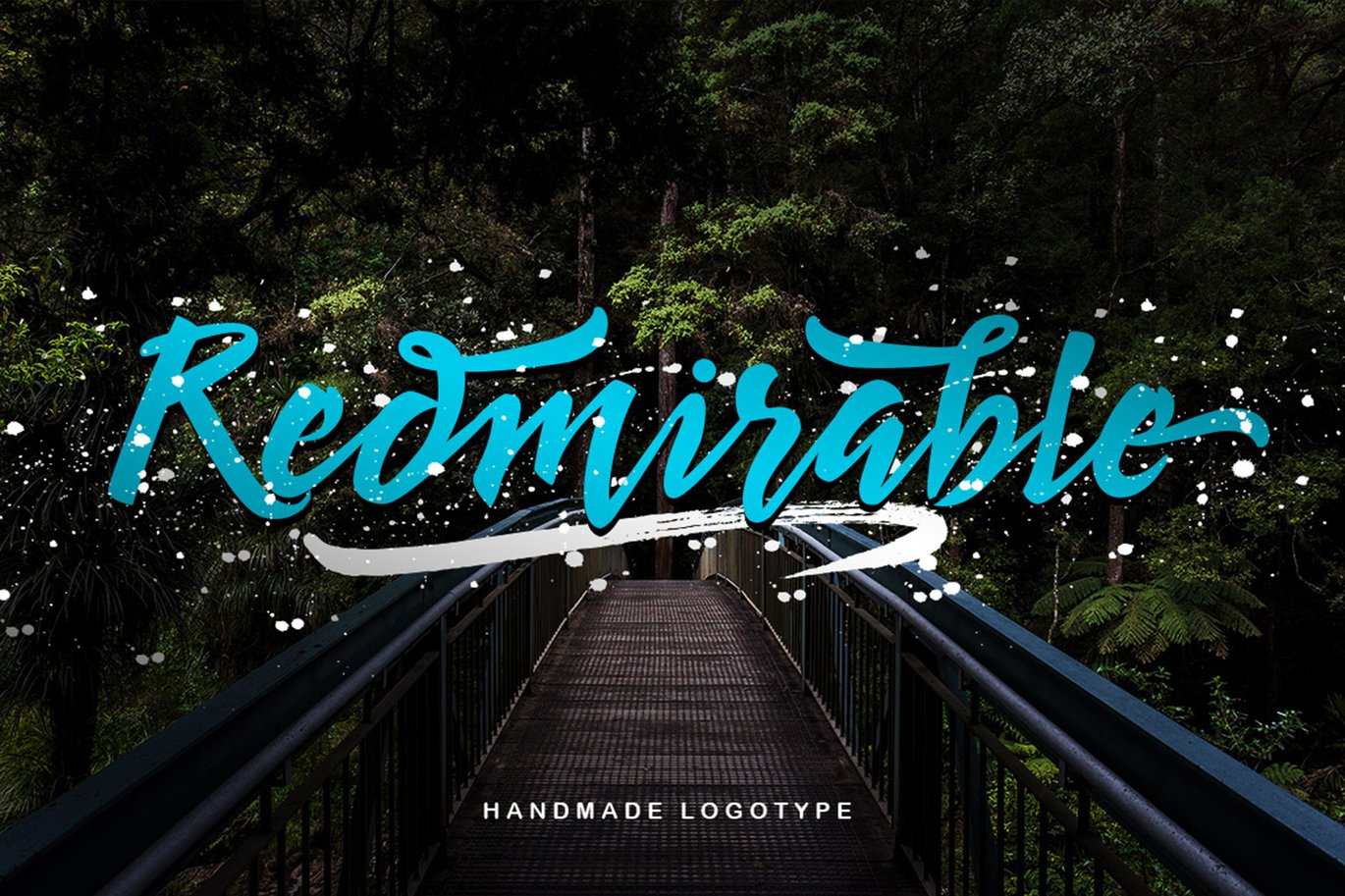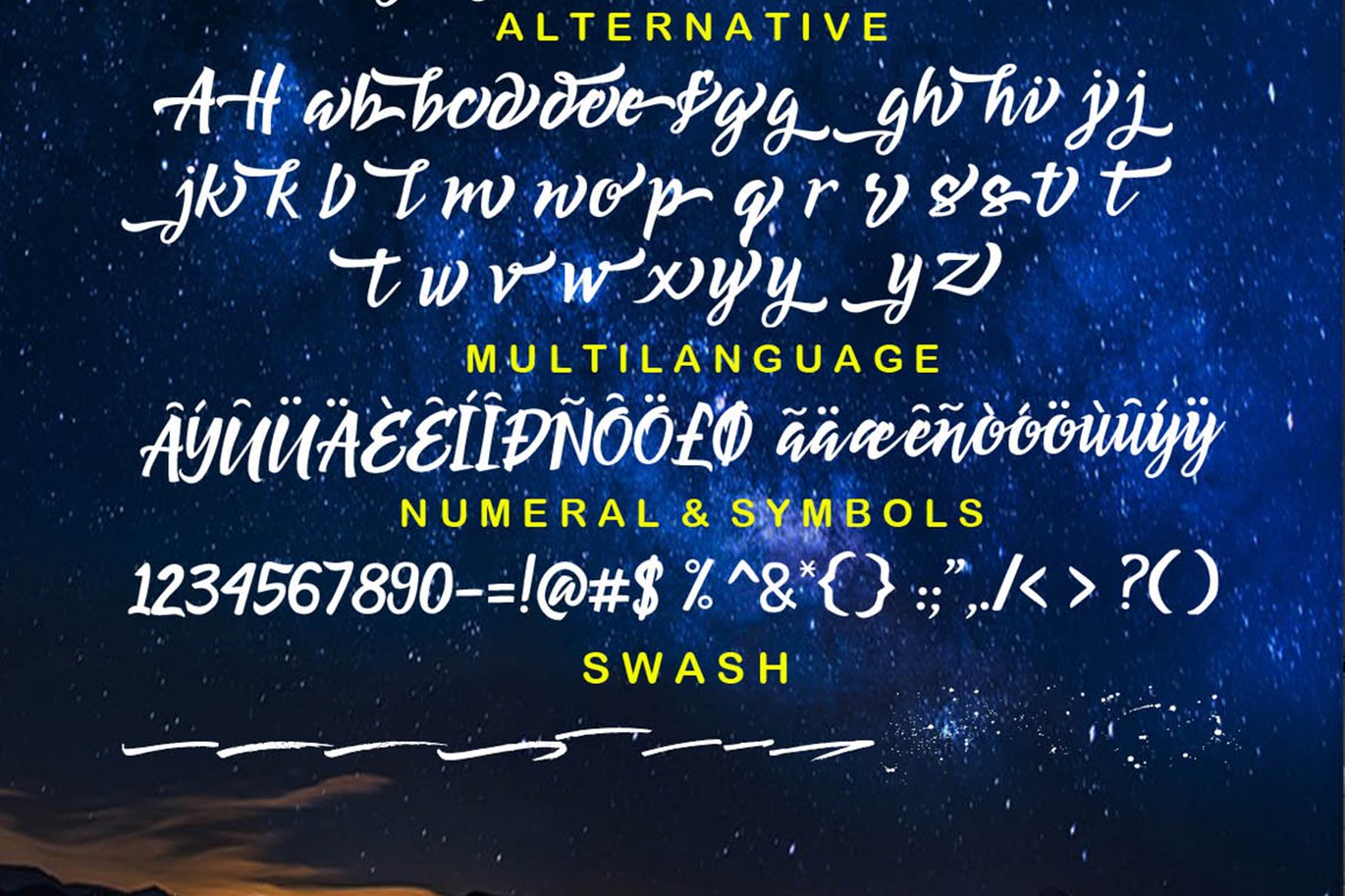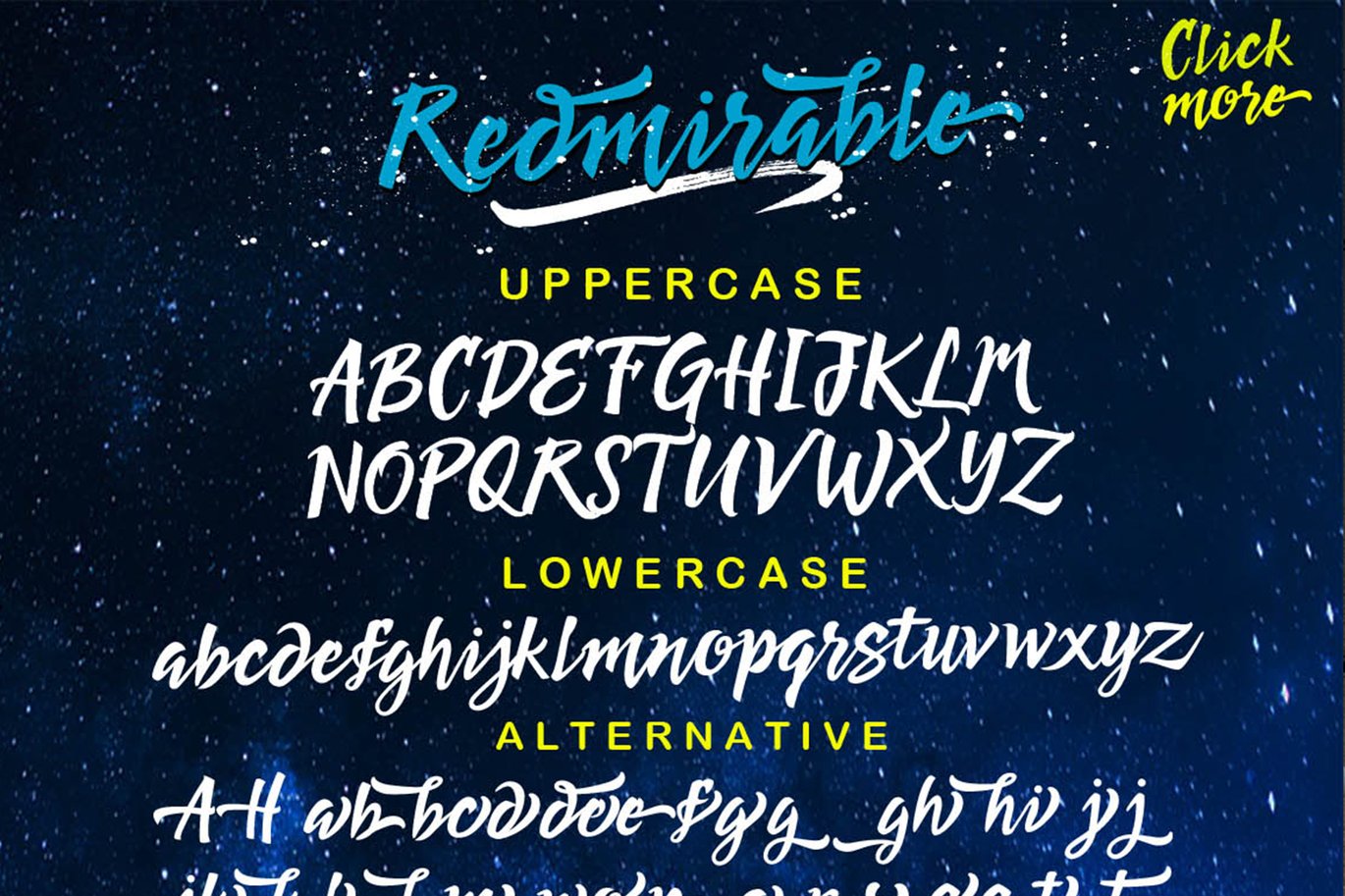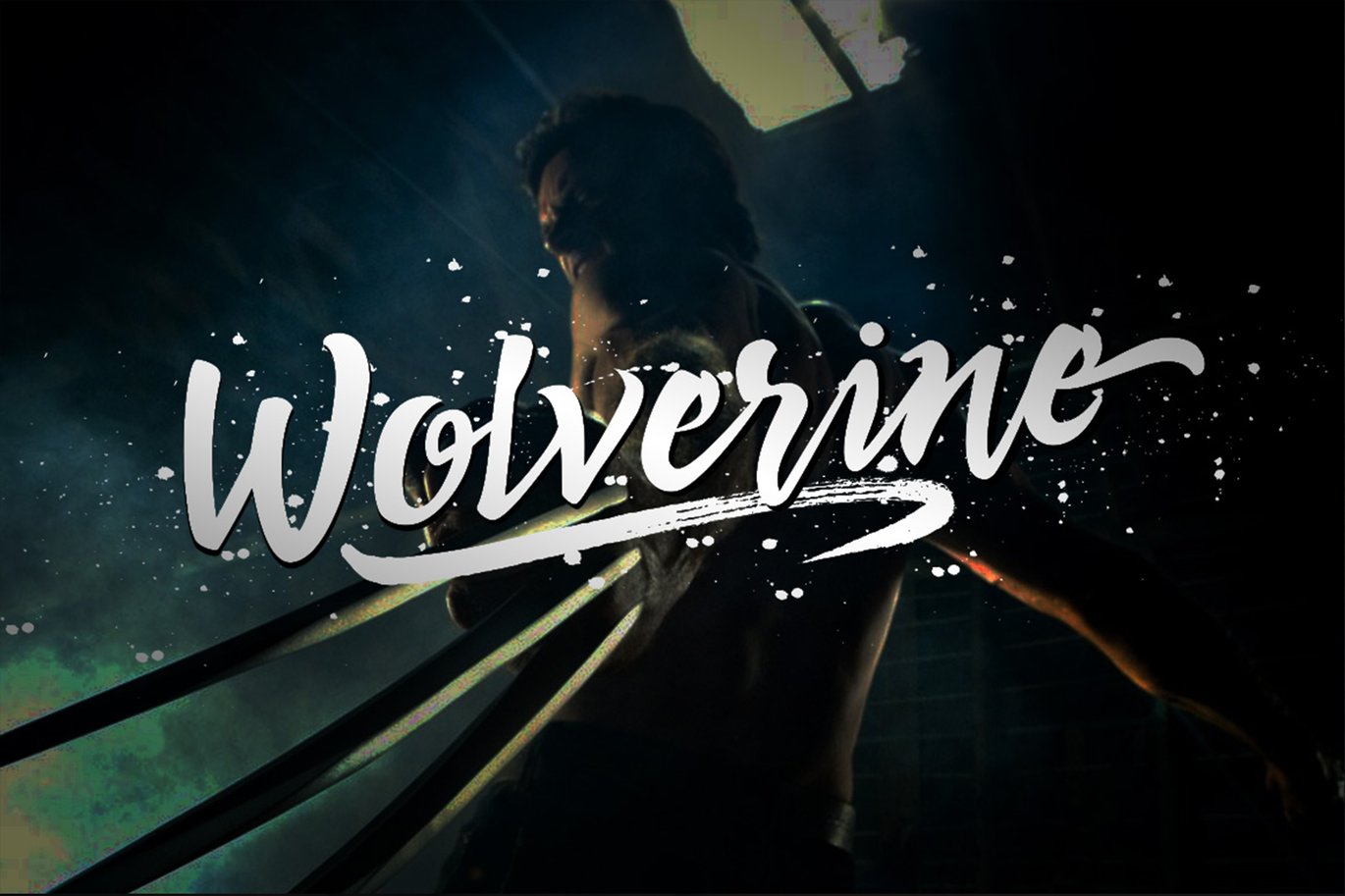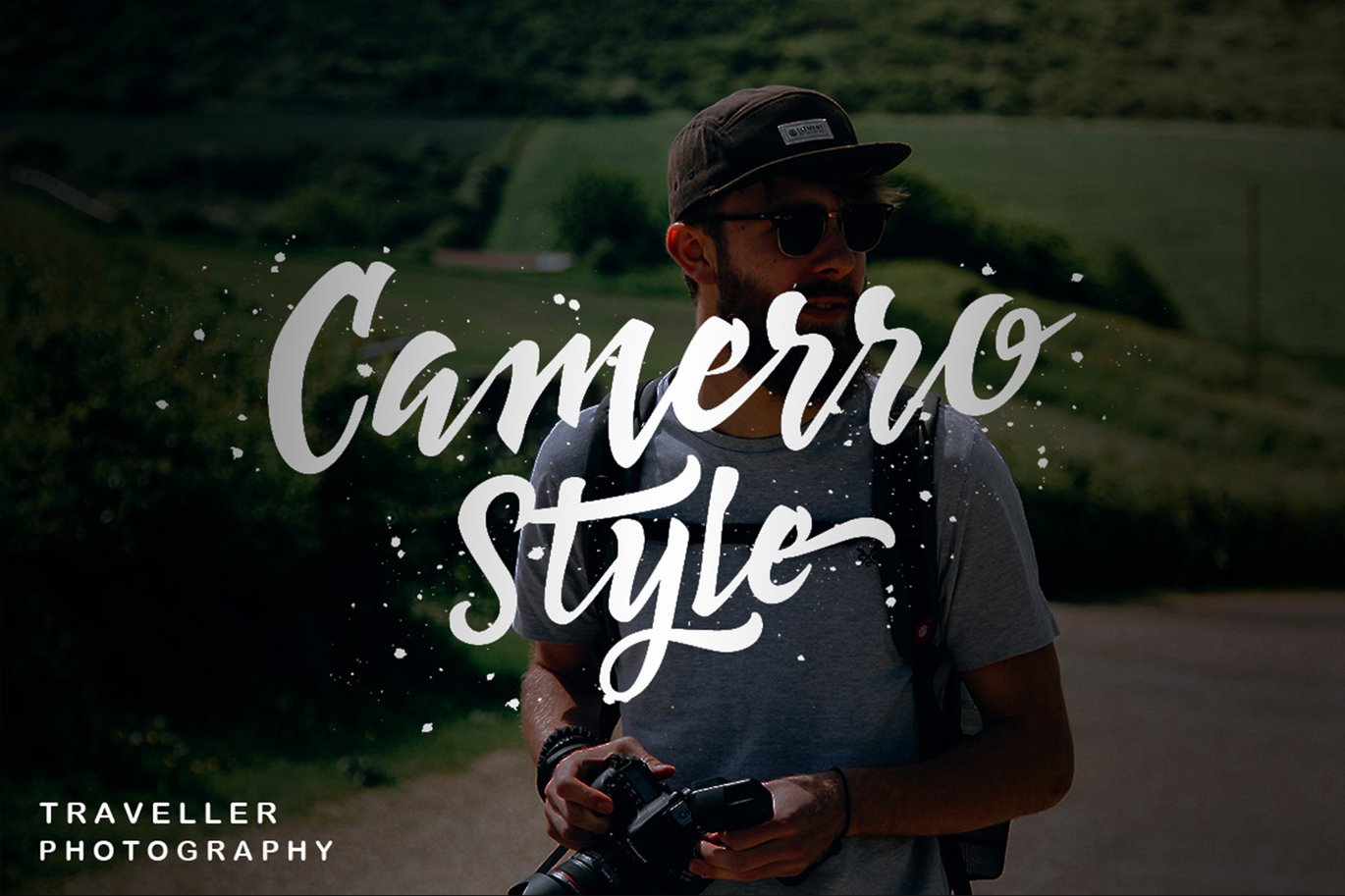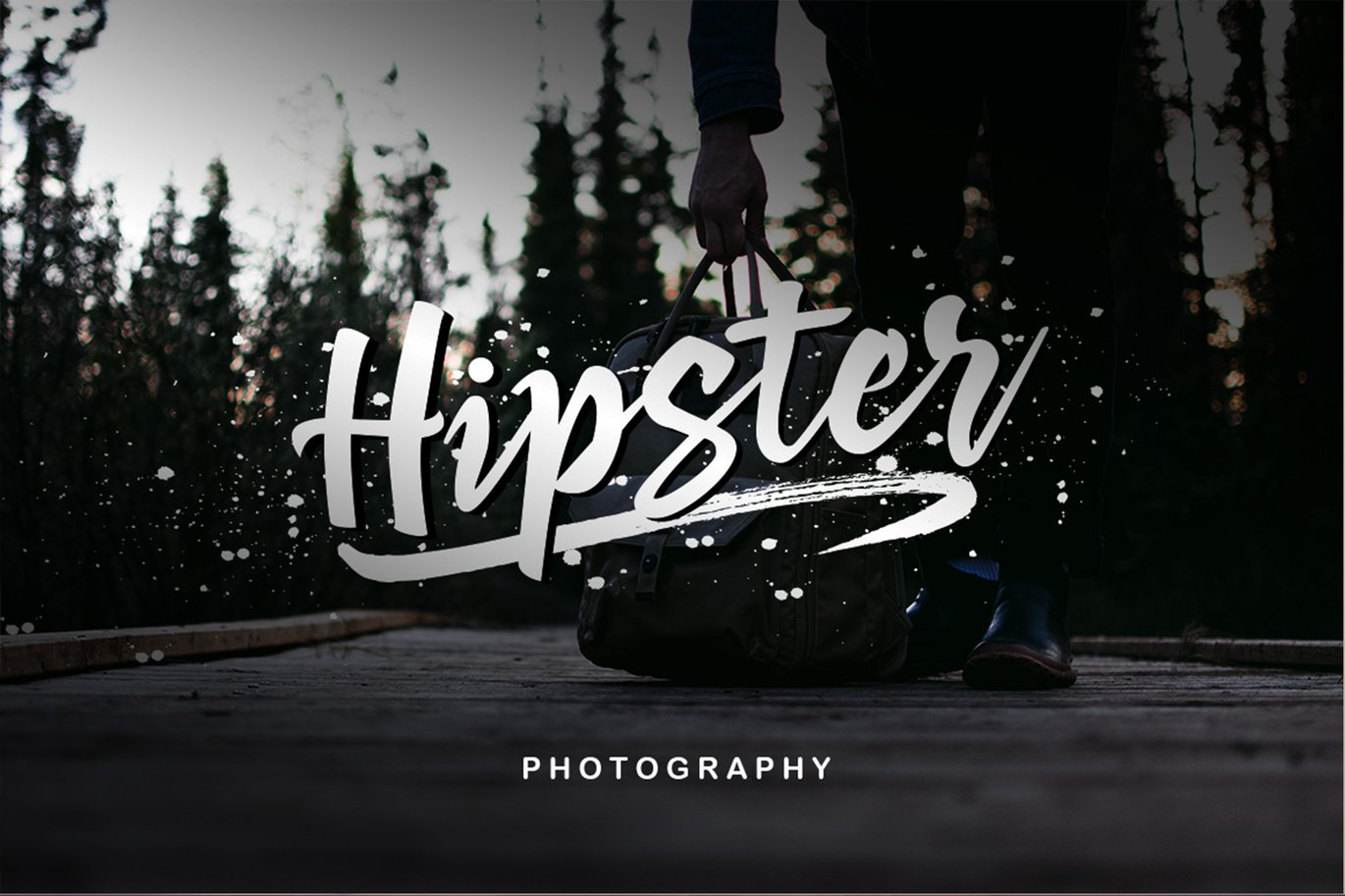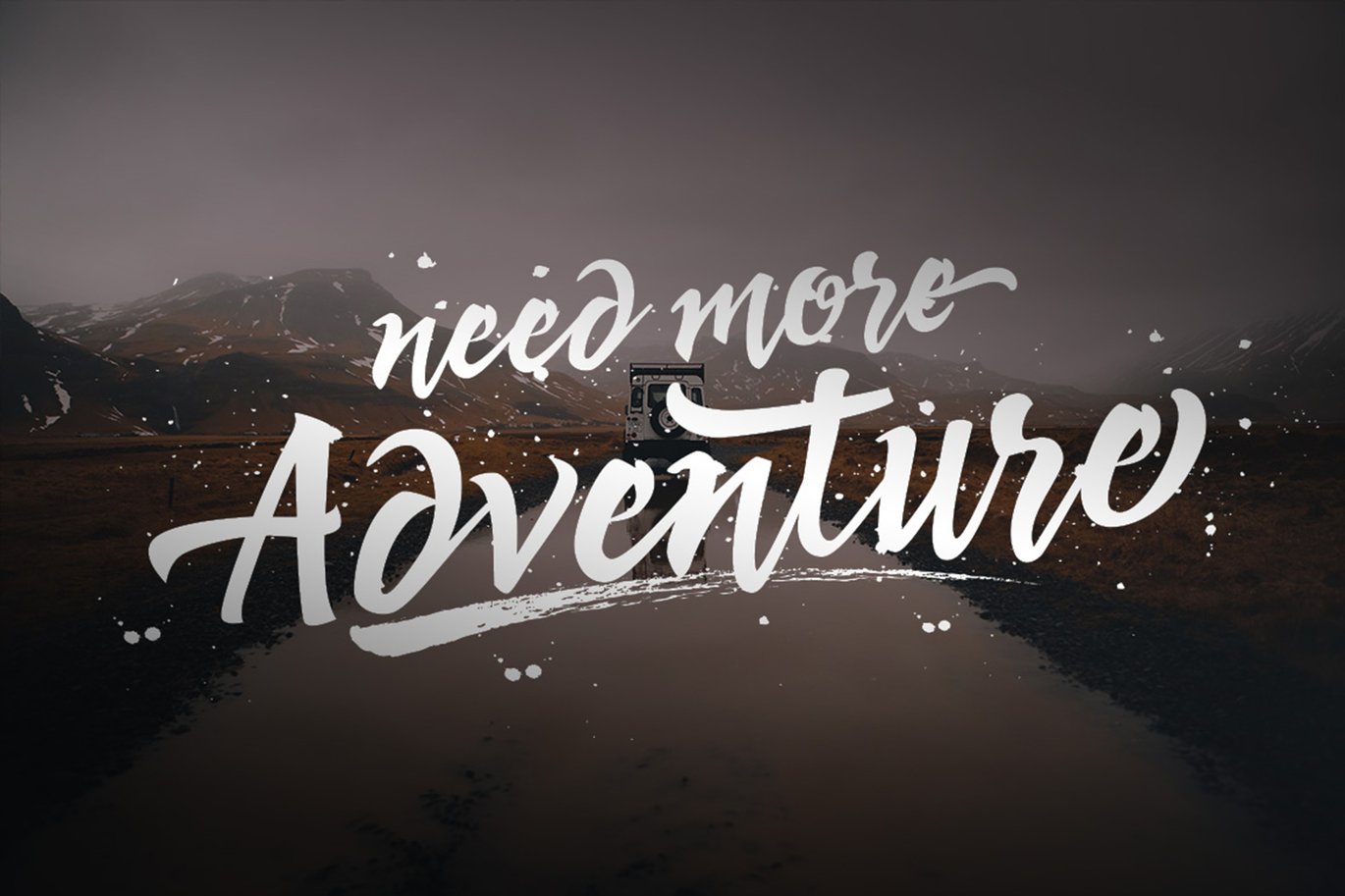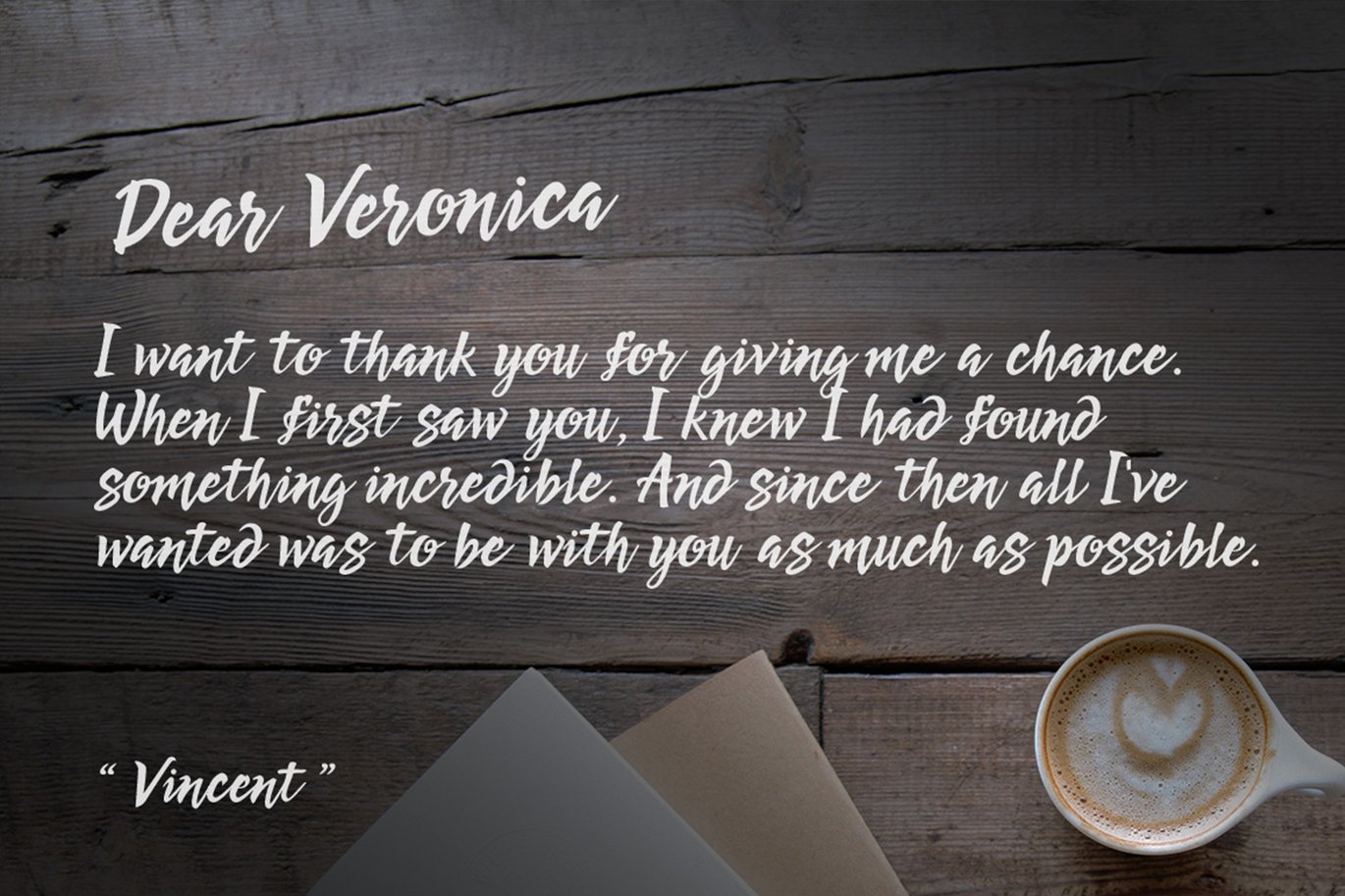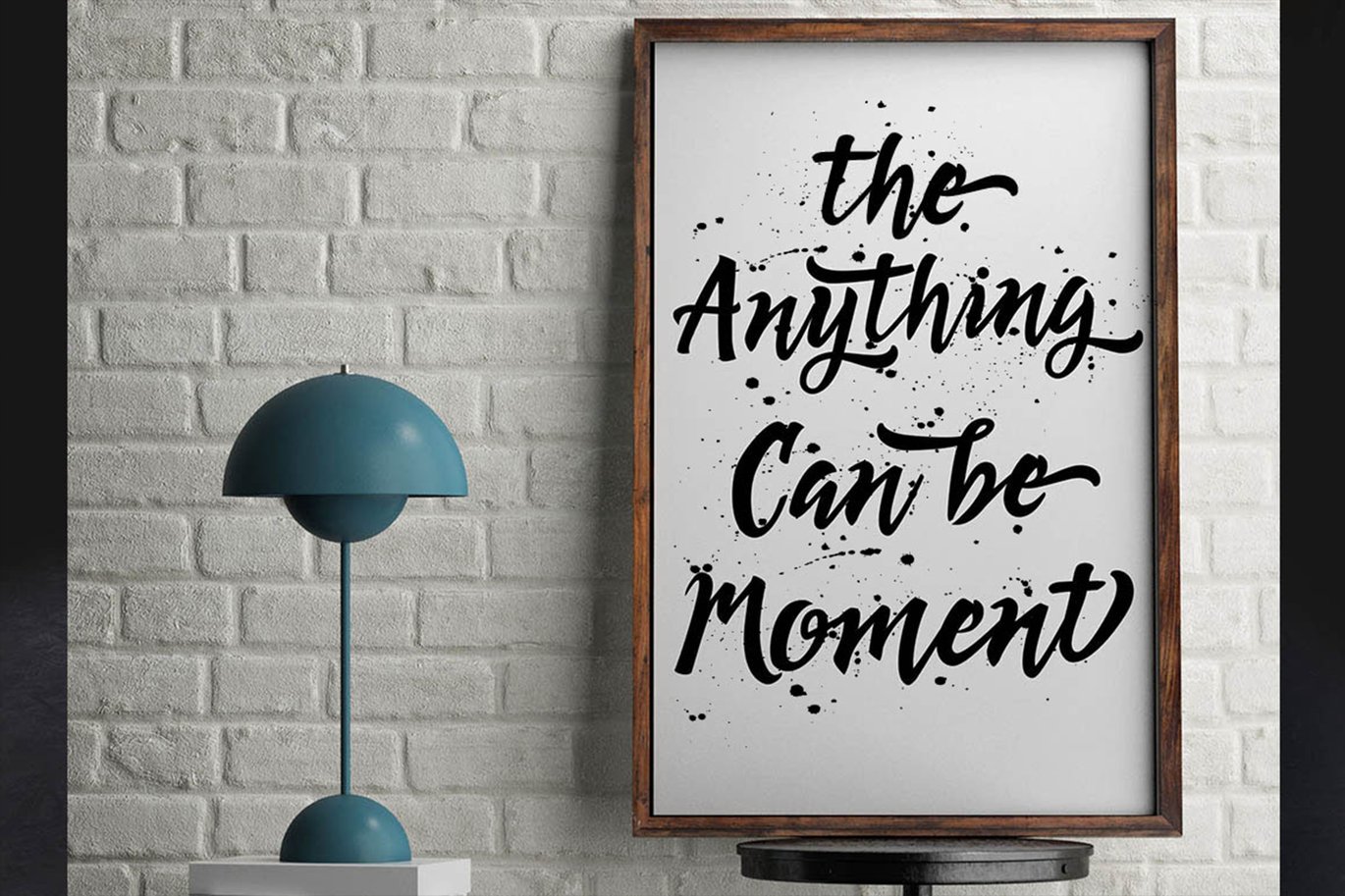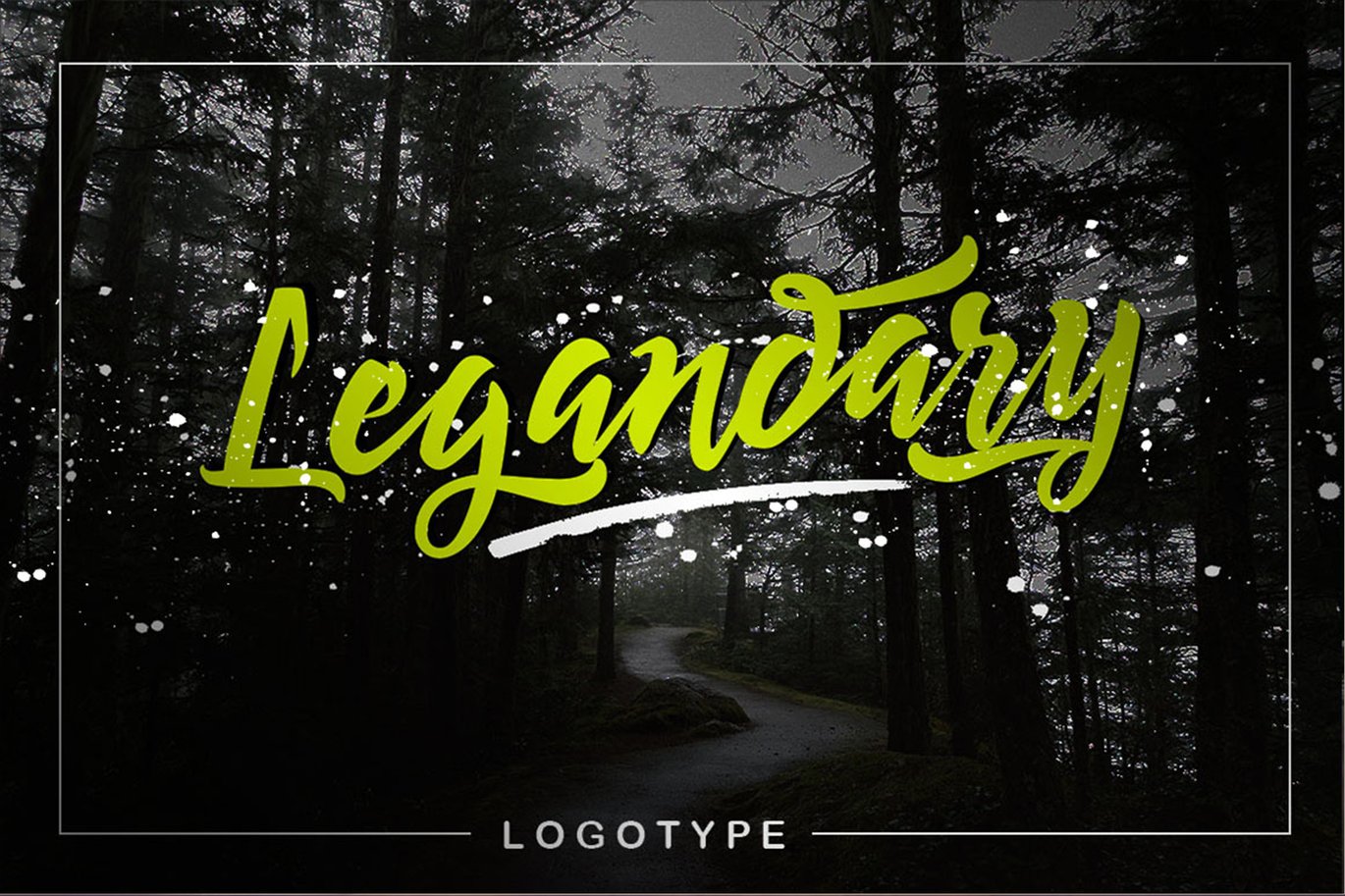
Redmirable Branding calligraphy Font
New Signature Font, a handmade font, new fresh & modern typeface with a calligraphy style. Redmirable can used for anything from promotional material, Logotype, Branding, handwritten quotes, to product packaging, signage, labels, newsletters, posters, merchandise and branding projects.
- Alternative Stylistic
- Symbols
- Multilanguage Support